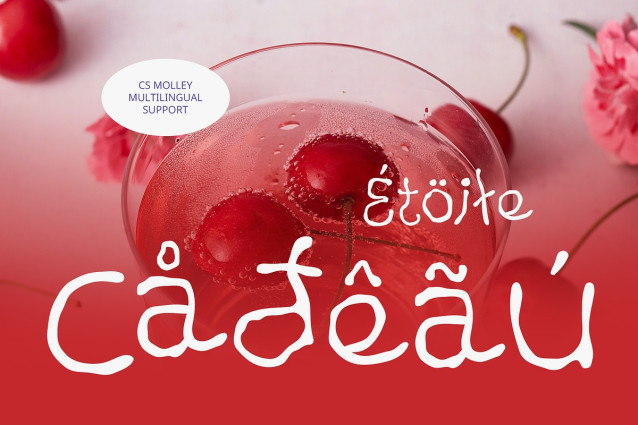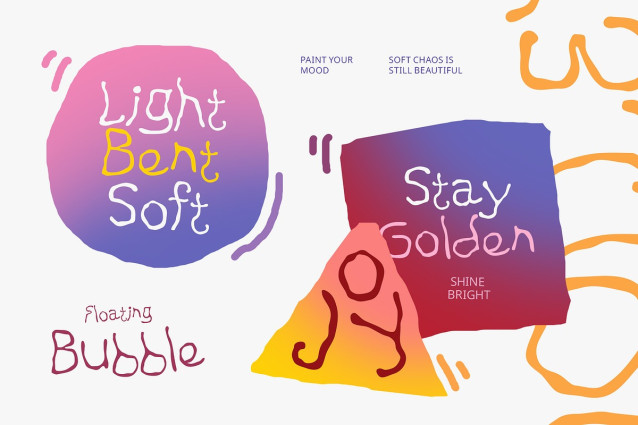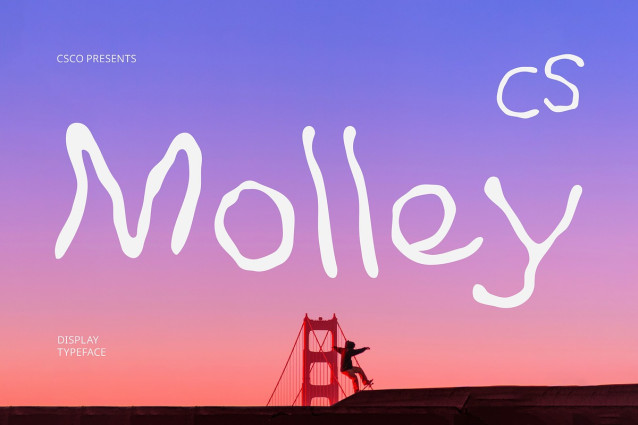
CS Molley Font
CS Molley – Etchy Font is a playful display typeface that brings a spontaneous and fun energy to your designs. Its etched, handwritten shapes deliver a warm and inviting feel, making it perfect for projects that need to feel personal and vibrant.
Funky Fluid Letterforms The fluidity of CS Molley’s letterforms creates an organic, flowing aesthetic that makes each word come alive. The rounded curves and irregular edges enhance the playful vibe, giving your design a dynamic and fresh look.
Perfect for Playful Projects CS Molley is the perfect choice for a wide range of fun and creative projects. From illustrations to children’s books, its whimsical charm shines through in any application. Its versatility makes it suitable for playful packaging designs, casual branding, and even event posters that aim to stand out with a friendly, approachable tone.
A Funky, Distinctive Look Ideal for projects that require a distinctive and fresh feel, CS Molley captures attention while maintaining an easygoing, approachable style. The font’s natural, hand-drawn aesthetic makes it the go-to choice for designs that want to reflect creativity, energy, and a sense of playfulness. It’s the perfect typeface for brands and designs that want to keep things light, fun, and memorable.